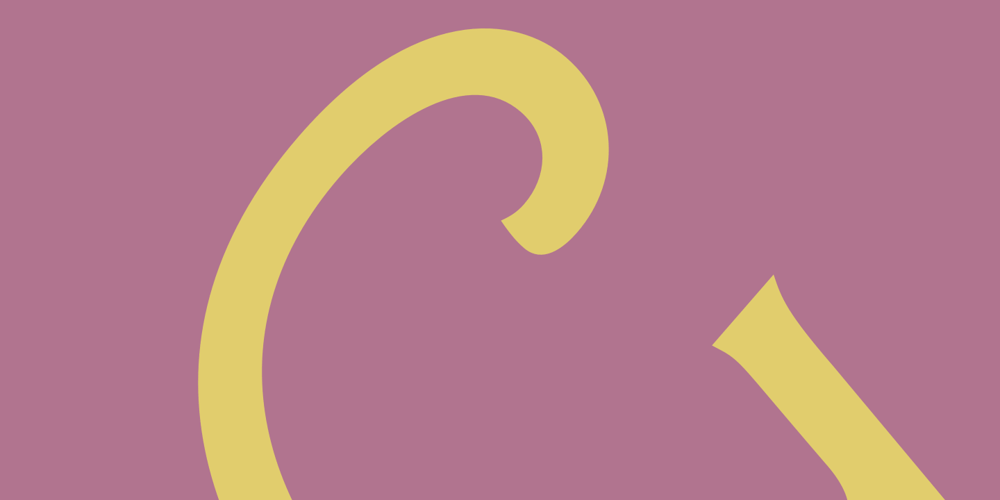
ITC Goudy Sans Font Family was designed by Frederic W. Goudy, ITC Design Staff and published by ITC. ITC Goudy Sans contains 8 styles and family package options. Frederic W. Goudy designed three weights of this friendly-looking sans serif font from 1922-1929 for Lanston Monotype in the United States. Goudy was attempting to impart freedom and personality to the sans serif form at a time when geometric sans serifs, such as Futura, were gaining rapid world-wide popularity. To achieve this challenging goal, he looked to lapidary inscriptions and manuscript writing for inspiration. He included elements such as slight swellings of terminal strokes, slab serifs on a few of the caps, alternate uncial forms, and a few swash strokes. The result is uniquely Goudy: charming, instinctive, and just right for adding warmth to magazine or advertising layouts. The design staff at ITC updated and filled out the family for a total of eight styles in ITC Goudy Sans.ITC Goudy Sans® font field guide including best practices, font pairings and alternatives.